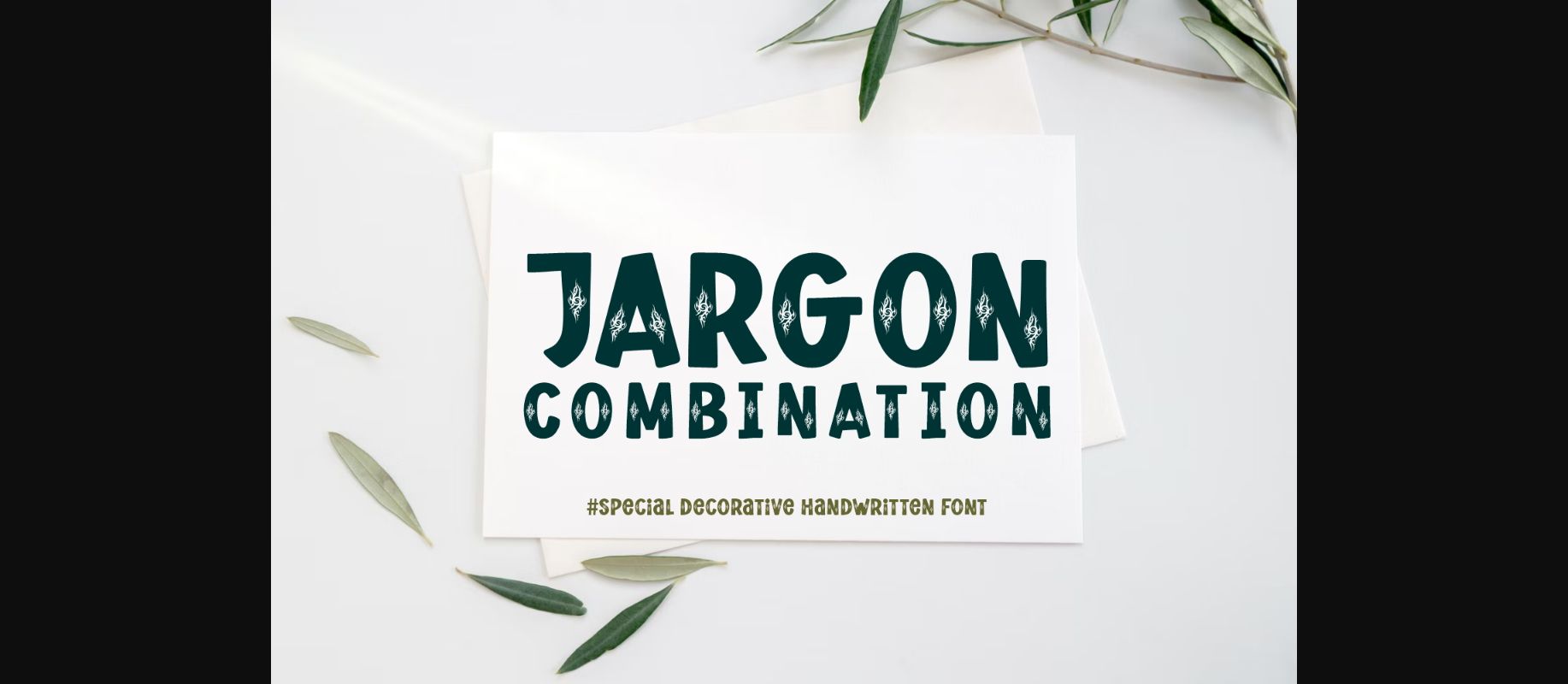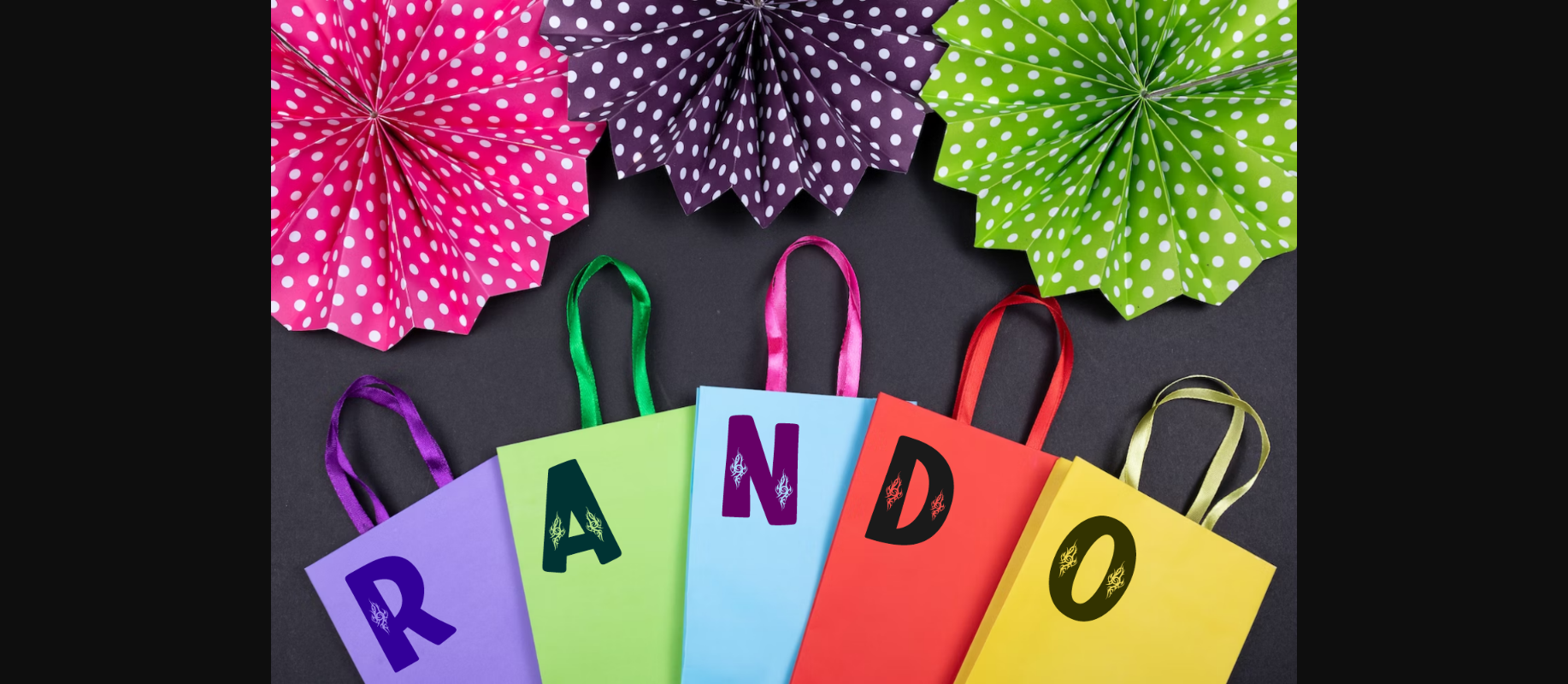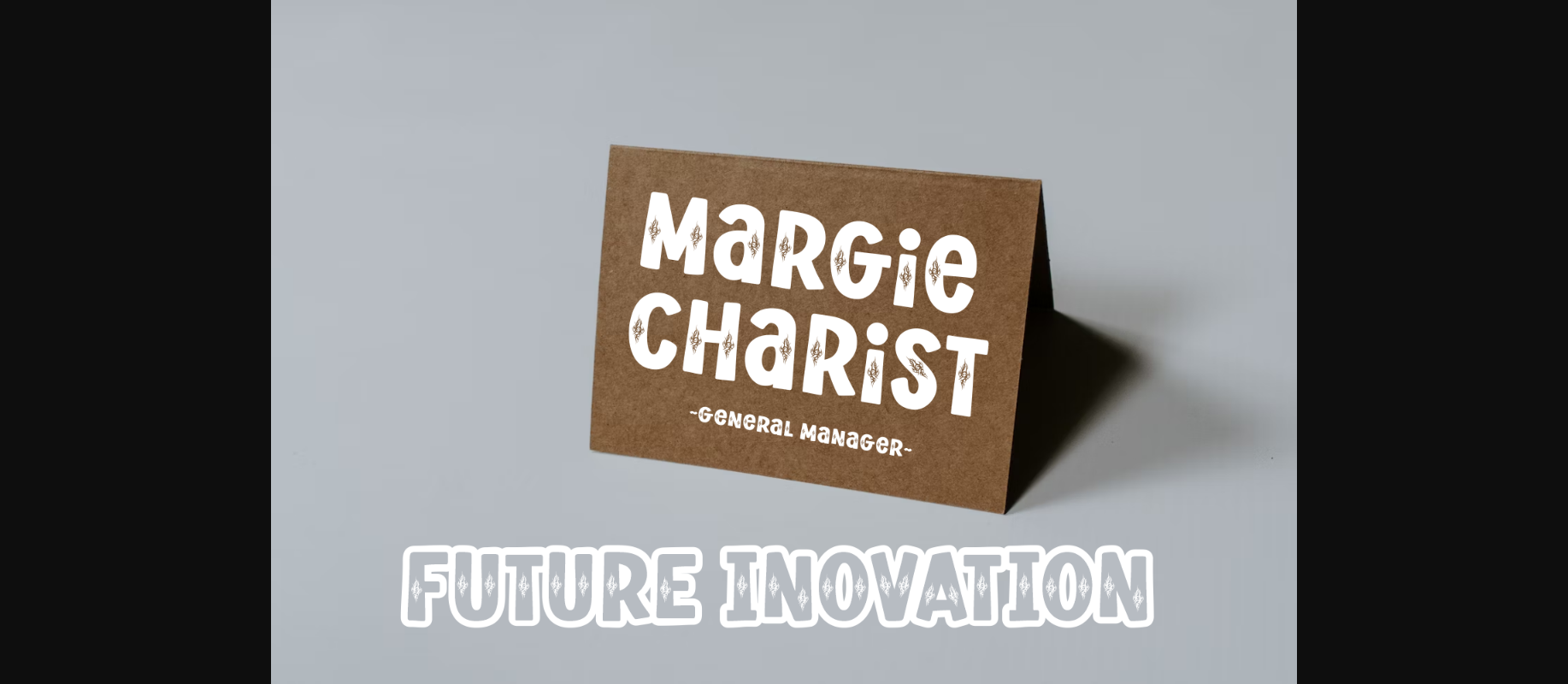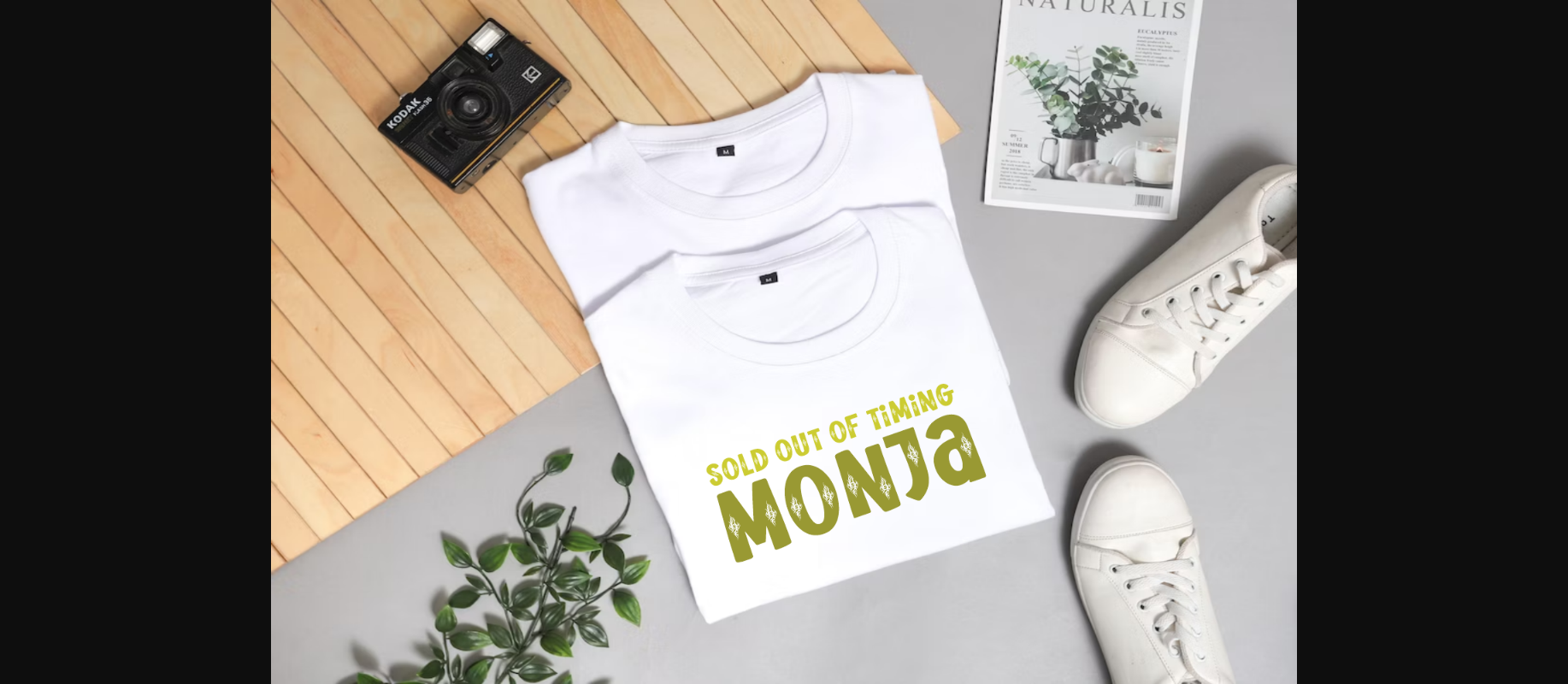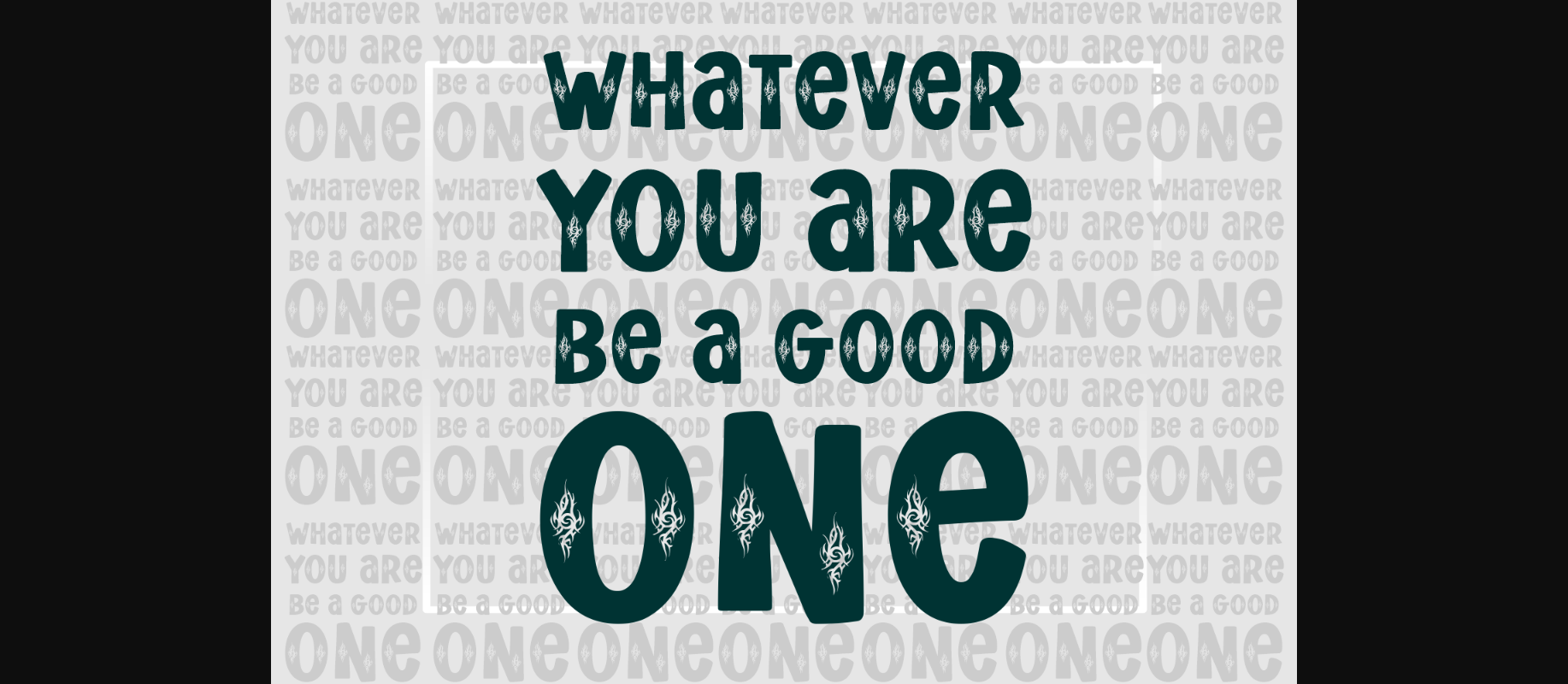
About Jargon Font
Jargon is an elegant and feminine typeface suitable for all kinds of headlines and decorative purposes. It will be a perfect choice for all kinds of wedding stationery, invitations, flower shops, packaging, social media posts, etc.